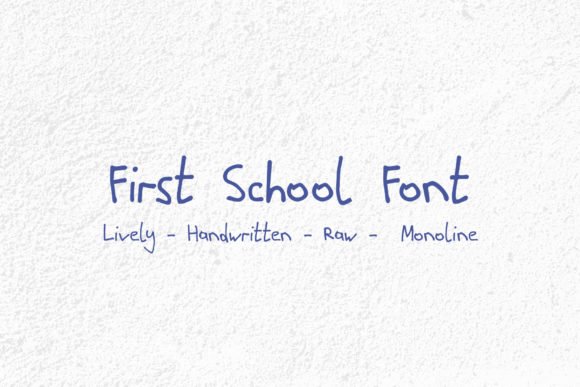
Unleash the Chalkboard Charm: Discover the Magic of First School Font
Do you remember the feeling of scribbling notes on the chalkboard in school, watching the words come to life in a messy, lovable scrawl? For designers, capturing that same nostalgic charm in digital designs can be a challenge. But what if you could transport your audience back to those carefree days, with a font that echoes the authentic look and feel of handwritten chalkboard quotes?
Enter the First School Font, a cute and simple handwritten font designed to add a personal and realistic touch to your designs. Whether you’re creating teaching materials, chalkboard quotes, or simply want to add a touch of whimsy to your projects, First School Font is the perfect companion. Its versatility and authenticity make it a valuable asset for designers seeking to connect with their audience on a deeper level.
First School Font Key Features
- Unique Character Set: First School Font features a unique set of characters, including alternate letters, swashes, and ligatures, which add a touch of elegance and sophistication to any text.
First School Font Review
Overall, I think the “First School Font” is a solid choice for educational materials. Here are a few things that work well: ✨
- Clear and legible letters – The font is easy to read, even at smaller sizes, making it perfect for young children.
- Simple design – The font’s minimalistic design won’t distract from the content, allowing kids to focus on learning.
- Fun and playful – The font’s rounded edges and friendly feel make it a great choice for children’s books and educational materials.
- Limited language support – The font may not be available in as many languages as some other fonts, which could be a limitation for global educational materials.
- Not ideal for body text – While the font is great for headings and titles, it may not be the best choice for large blocks of body text, as it can be a bit too playful.
Overall, I think the “First School Font” is a great choice for educational materials, especially for children’s books and learning materials. It’s a fun and engaging font that’s easy to read and use. Just be aware of its limitations and consider using it for headings and titles rather than body text.
First School Font is a playful, educational font that’s perfect for:
Children’s books and educational materials.
Party invitations and decorations.
Designing a fun and engaging learning environment.
For best results, use First School Font in bold or italic styles to add emphasis and visual interest.